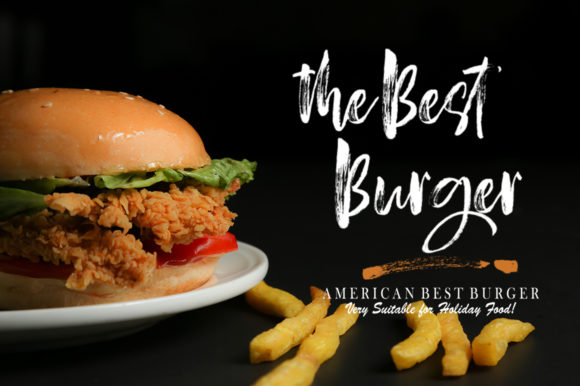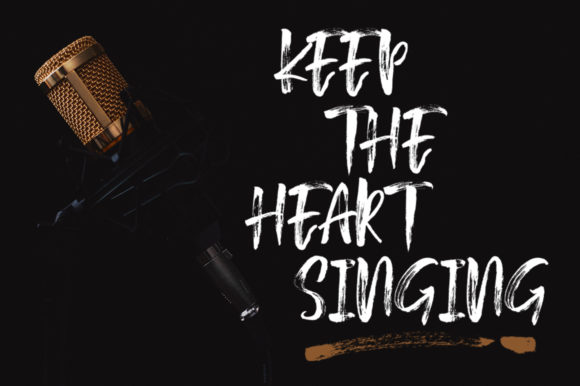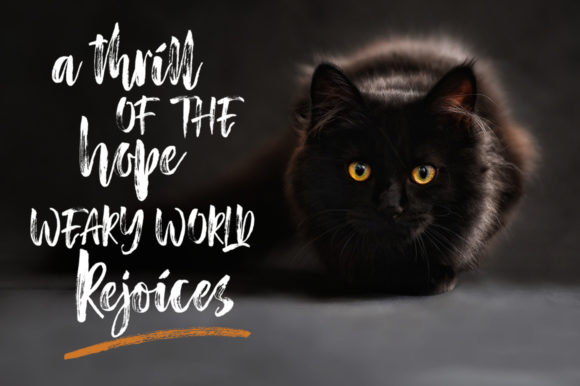
Introduction to Red Blues Font
Red Blues is a bold brush font with a contemporary feel.
Use it to turn any design project into an eye-catcher .
Key Features of Red Blues Font
Why Choose Red Blues Font?
Red Blues Font offers exceptional quality and versatility, making it a valuable addition to your design toolkit. Whether you’re creating for personal projects or commercial use, Red Blues Font delivers professional results.